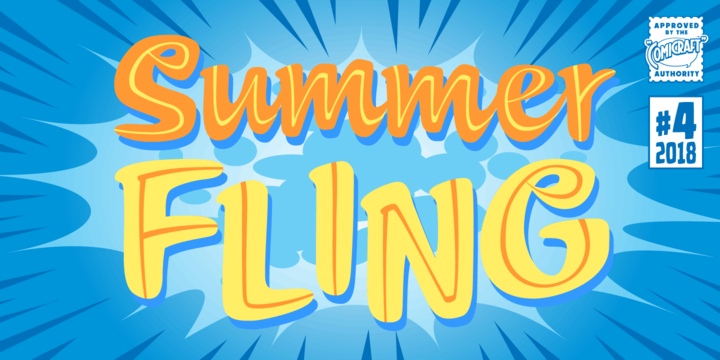
Summer Fling Font
This font is perfect for beach resort branding, vacation travel posters, tropical event invitations, summer festival signage, beachwear clothing labels, poolside bar menus, outdoor music venue materials, and seasonal marketing campaigns.
The Summer Fling Font Free Download is exciting because it captures the carefree spirit of summer romance and beach adventures with its playful, breezy letterforms that instantly evoke warm sunshine and endless vacation possibilities.
The Summer Fling font family includes light, regular, bold, script, and handwritten variations, plus decorative elements, providing designers with fun typographic options for creating vibrant seasonal branding and joyful design compositions.
Whether you're designing for vacation destinations, summer entertainment venues, or seasonal lifestyle brands, the Summer Fling Font delivers unmatched warmth and playful energy. Its carefully crafted letterforms feature relaxed curves and casual styling that perfectly capture the essence of carefree summer days and romantic beach sunsets. The font's cheerful character makes it particularly effective for brands wanting to communicate fun, freedom, and the joy of seasonal experiences. Professional designers appreciate how this typeface balances whimsical charm with clear readability, ensuring messages remain accessible while conveying pure summer happiness. The font's casual elegance and flowing lines reflect the relaxed atmosphere and spontaneous adventures associated with perfect summer memories. From vacation brochures to festival merchandise, this font adapts wonderfully to any warm-weather application. The Summer Fling Font Free Download offers exceptional value for designers seeking typography that embodies seasonal joy and romance. Its timeless summer appeal ensures lasting impact in seasonal marketing campaigns, while its playful variations accommodate different creative moods. The font's optimized spacing and carefree character create engaging experiences that transport audiences to their favorite summer destinations, making it essential for brands celebrating the magic of warm weather and unforgettable vacation moments.